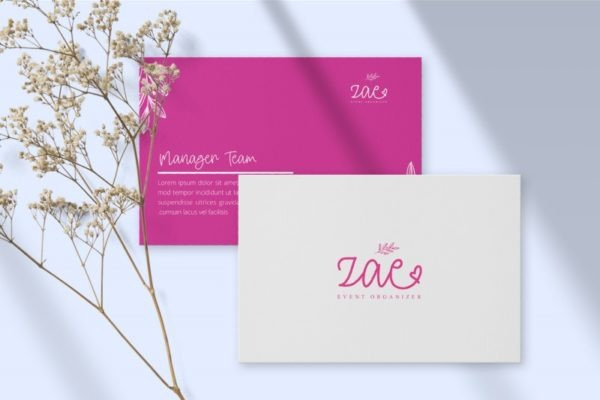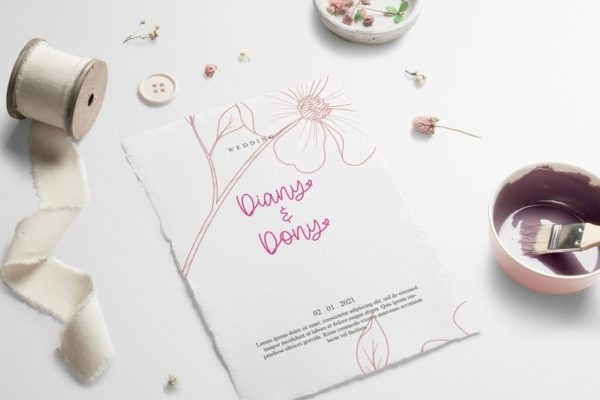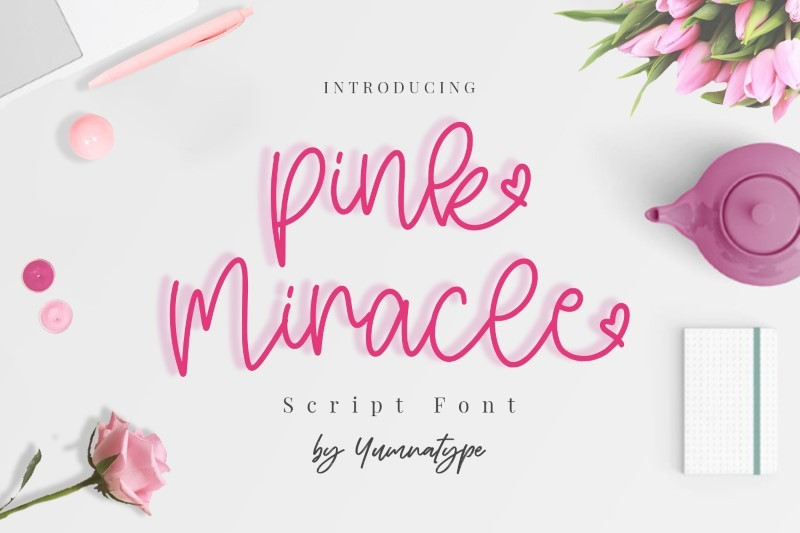
Pink Miracle Handwritten Font
Pink Miracle is a elegant handwritten font. Made for any professional project branding. It is the best for logos, branding and quotes. Every letter has a unique and beautiful touch.